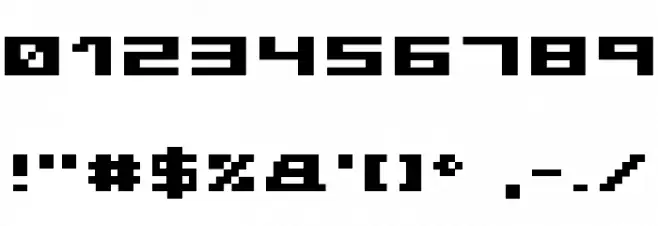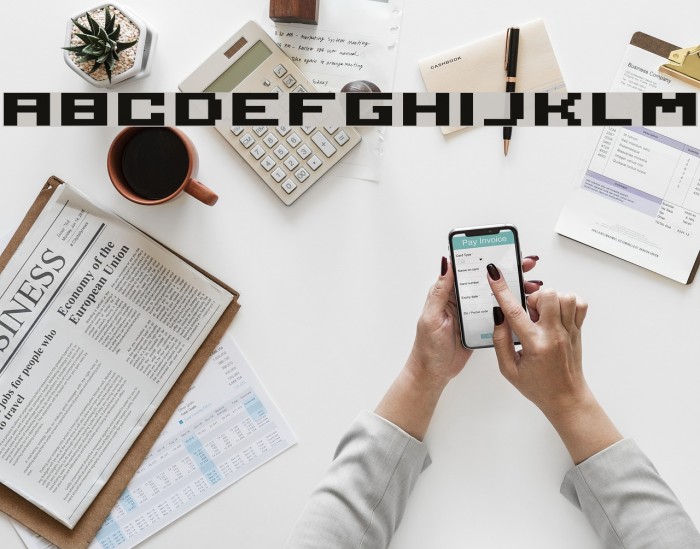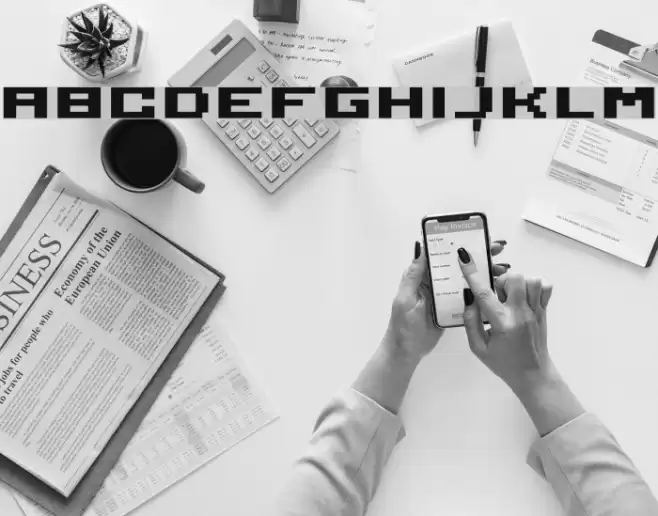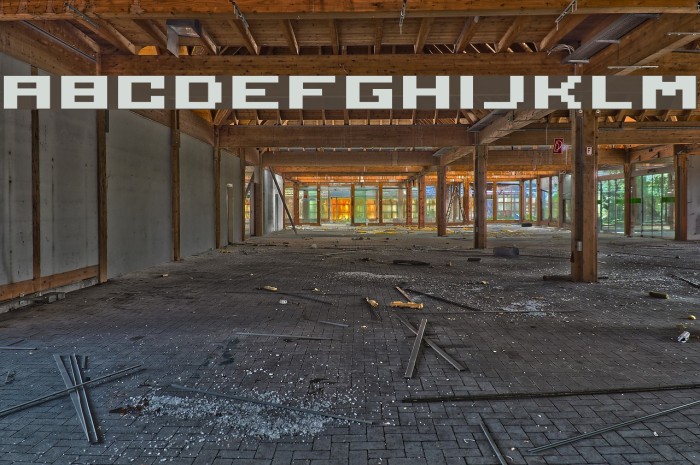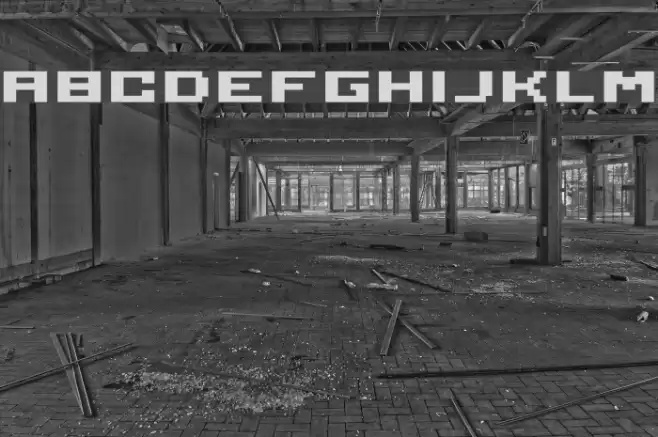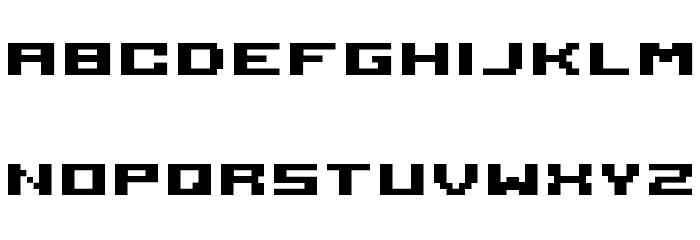
serious3b Font
serious3b Description
This font features a bold, geometric design with a pixelated, blocky appearance reminiscent of early digital displays or retro video games. The characters are uniformly structured with sharp, angular edges and consistent stroke widths, creating a cohesive and striking visual impact. The uppercase and lowercase letters maintain a uniform height, enhancing the font's monospaced feel. The numerals and special characters are designed with the same pixelated style, ensuring consistency across all glyphs. This font's distinct style makes it ideal for projects that require a retro or digital aesthetic.
Overall StyleRetro, Digital
Use CaseHeadlines, Logos, Digital displays
Proposed ProjectsIdeal for video game design, retro-themed posters, digital art, and tech branding.